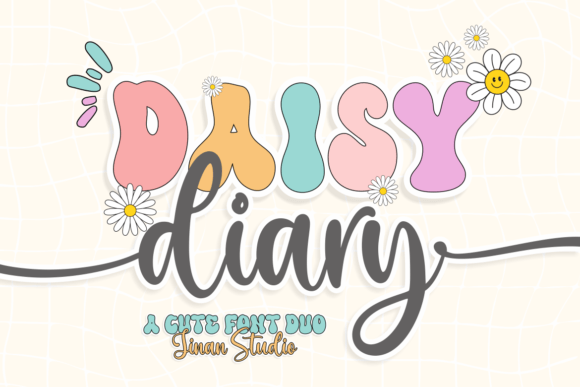
Daisy Diary Font: Elevate Your Creations with this Groovy Font Duo
In the world of typography, fonts play a crucial role in conveying emotions and setting the tone for various creative projects. Whether you’re designing greeting cards, crafting headlines, or creating stickers and banners, the right font can make all the difference. Introducing Daisy Diary Font, a groovy, cute, and stylish font duo that’s perfect for a wide range of applications. In this article, we’ll explore the features and benefits of Daisy Diary Font and how it can elevate your creative projects.
What is Daisy Diary Font?
Daisy Diary Font is a font duo consisting of a display font and a script font. This dynamic duo is designed to work together seamlessly, providing a cohesive look that’s perfect for various creative projects. The display font is bold and eye-catching, while the script font adds a touch of elegance and sophistication.
One of the standout features of Daisy Diary Font is its versatility. It’s suitable for a wide spectrum of applications, from greeting cards and headlines to stickers and banners. Whether you’re creating digital content or print materials, this font duo is sure to impress.
Uses of Daisy Diary Font
Daisy Diary Font is an incredibly versatile font duo that can be used in a wide range of applications. Here are some ideas to get you started:
- Greeting Cards: Add a personal touch to your greeting cards with Daisy Diary Font. The display font is perfect for headings, while the script font adds a touch of elegance to the message.
- Headlines: Make your headlines stand out with the bold and eye-catching display font. The script font can be used to add a touch of sophistication to subheadings.
- Stickers: Create eye-catching stickers with Daisy Diary Font. The font duo is perfect for creating fun and playful stickers that are sure to grab attention.
- Banners: Use Daisy Diary Font to create stunning banners that showcase your brand or message. The display font is perfect for headings, while the script font adds a touch of elegance to the design.
Benefits of Daisy Diary Font
Daisy Diary Font offers a range of benefits that make it an ideal choice for designers and creatives. Here are some of the advantages of using this font duo:
- Unique and Eye-Catching: Daisy Diary Font is a unique and eye-catching font duo that’s sure to grab attention. The display font is bold and playful, while the script font adds a touch of elegance.
- Versatile: This font duo is incredibly versatile and can be used in a wide range of applications. Whether you’re creating digital content or print materials, Daisy Diary Font is sure to impress.
- High-Quality: Daisy Diary Font is a high-quality font duo that’s designed to deliver exceptional results. The font is clear and legible, making it perfect for digital and print applications.
Tips for Using Daisy Diary Font
Here are some tips for using Daisy Diary Font in your creative projects:
- Experiment with Different Sizes: Experiment with different font sizes to create visual interest. The display font looks great in larger sizes, while the script font is perfect for smaller text.
- Mix and Match: Mix and match the display font and script font to create a unique look. You can use the display font for headings and the script font for body text.
- Use Glyphs and Ligatures: Take advantage of the PUA encoding and use glyphs and ligatures to add a personal touch to your designs.
- Pair with Other Fonts: Pair Daisy Diary Font with other fonts to create a unique look. You can use a sans-serif font to create a bold and modern look or a serif font to add a touch of elegance.
Daisy Diary Font is a groovy, cute, and stylish font duo that’s perfect for a wide range of creative projects. With its versatility, PUA encoding, and high-quality design, this font duo is sure to elevate your creations. Whether you’re designing greeting cards, crafting headlines, or creating stickers and banners, Daisy Diary Font is an ideal choice. So why wait? Download Daisy Diary Font today and take your creative projects to the next level!